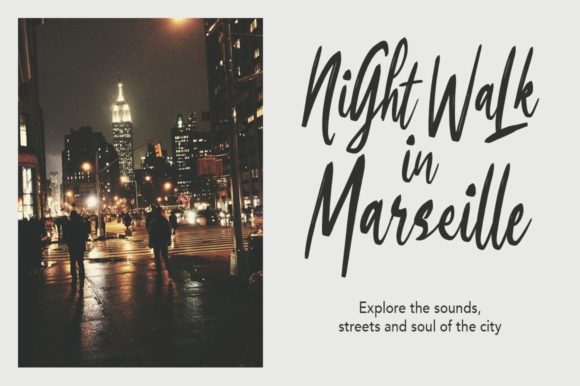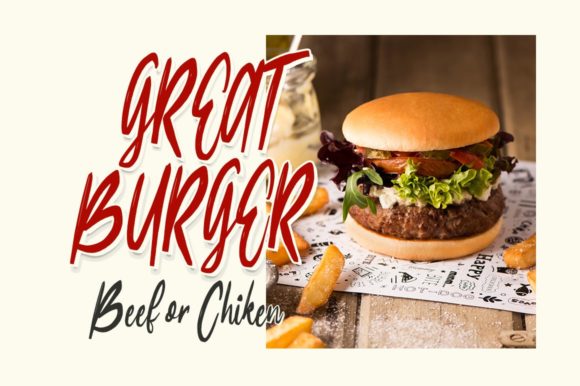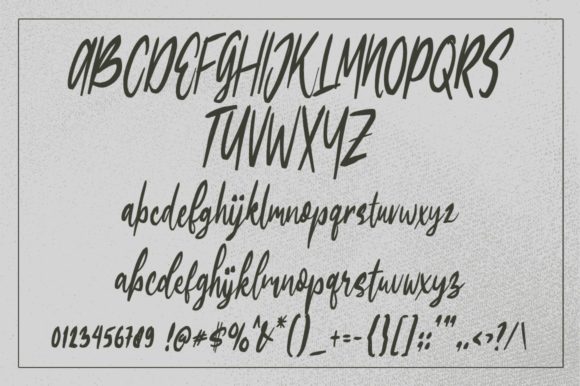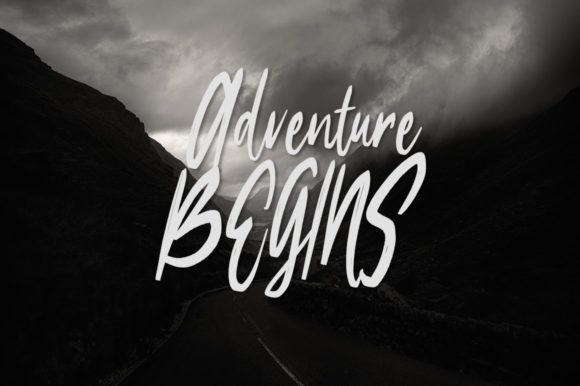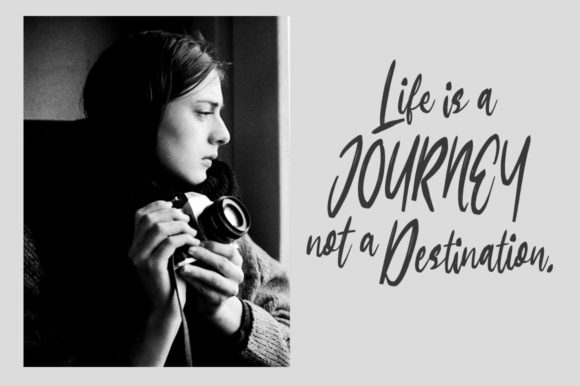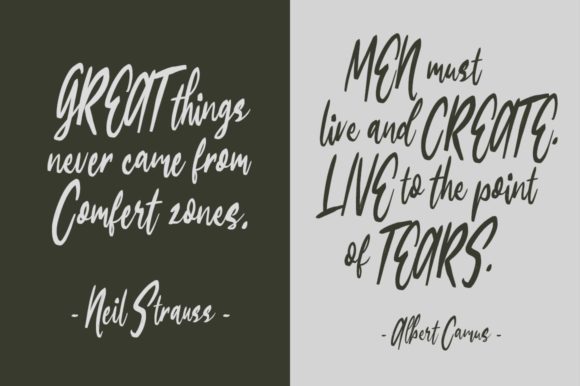
Introduction to Edigtor Font
Edigtor is a relaxed and timeless handwritten font.
Add it to your most creative ideas and notice how it makes them come alive .
Key Features of Edigtor Font
Why Choose Edigtor Font?
Edigtor Font offers exceptional quality and versatility, making it a valuable addition to your design toolkit. Whether you’re creating for personal projects or commercial use, Edigtor Font delivers professional results.